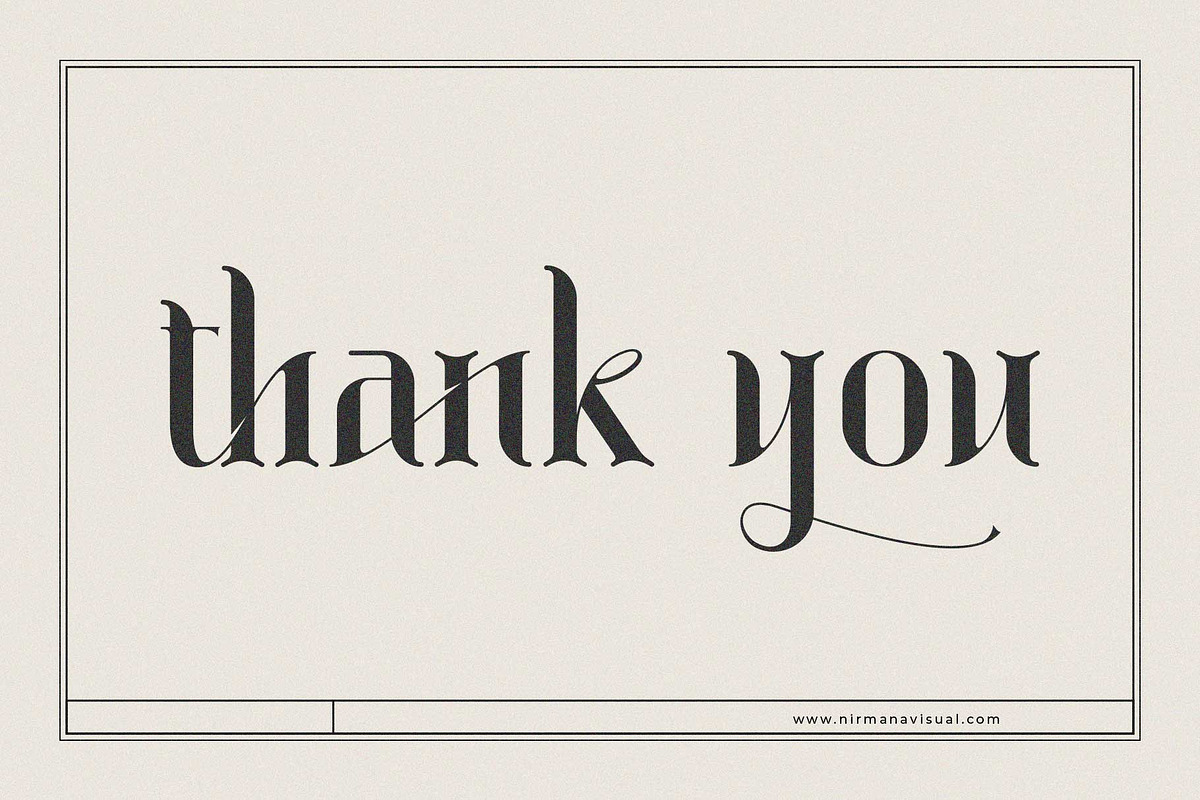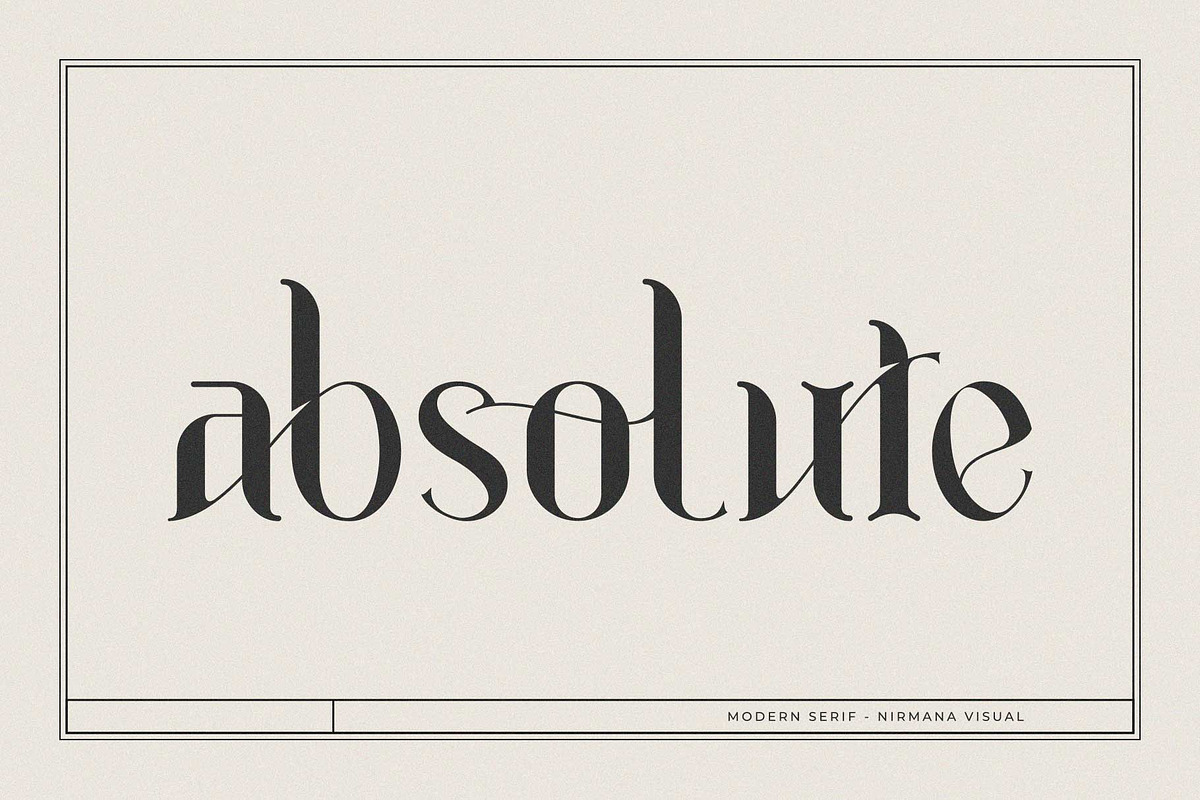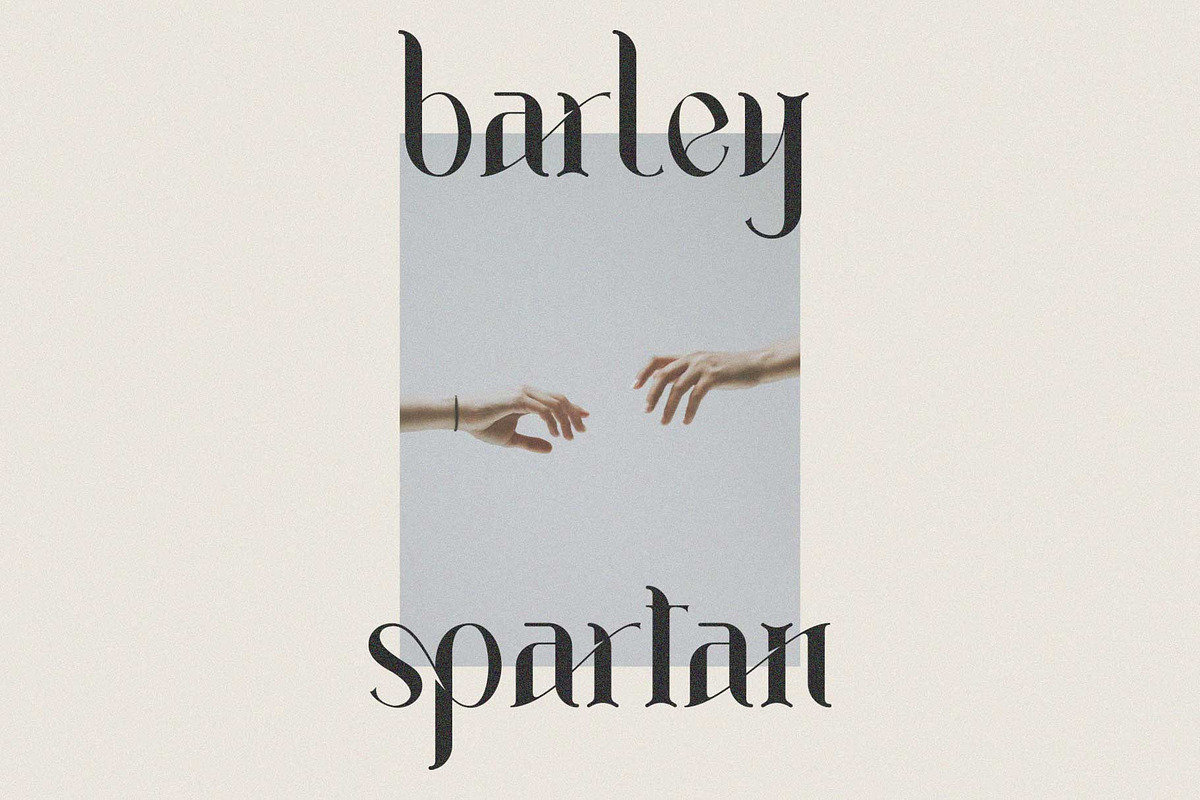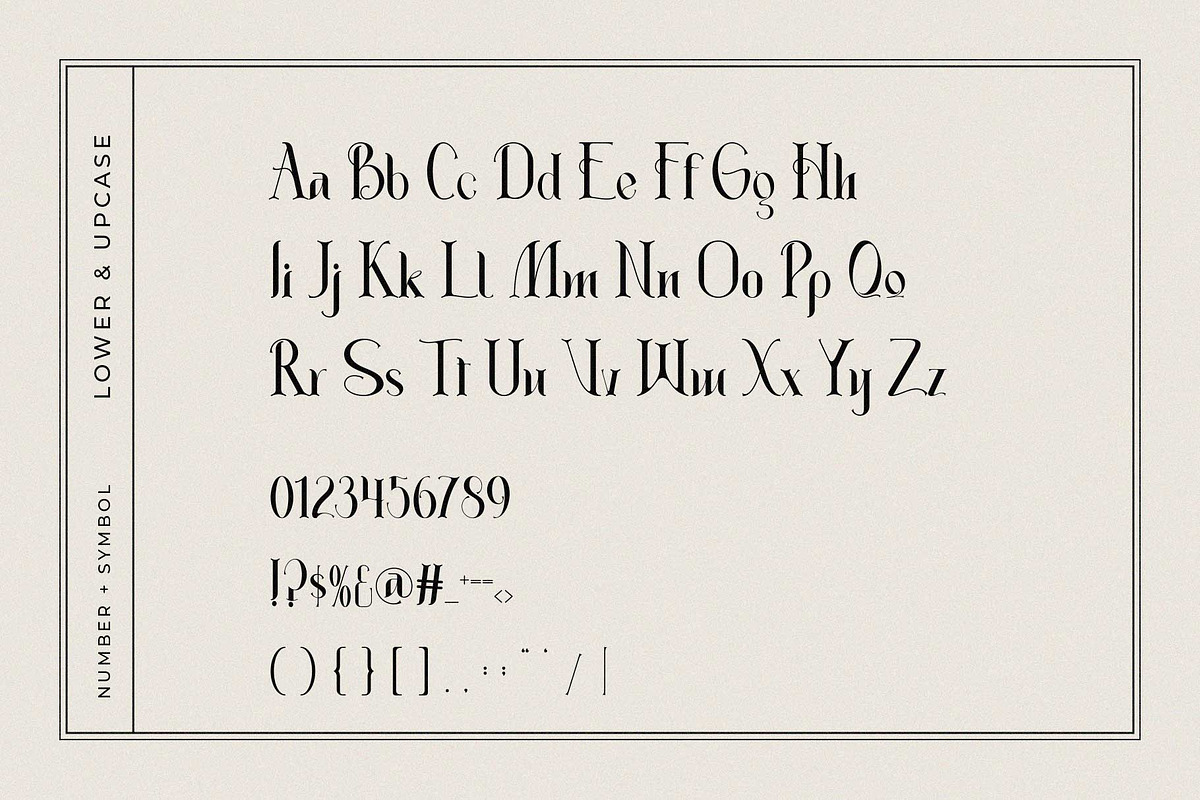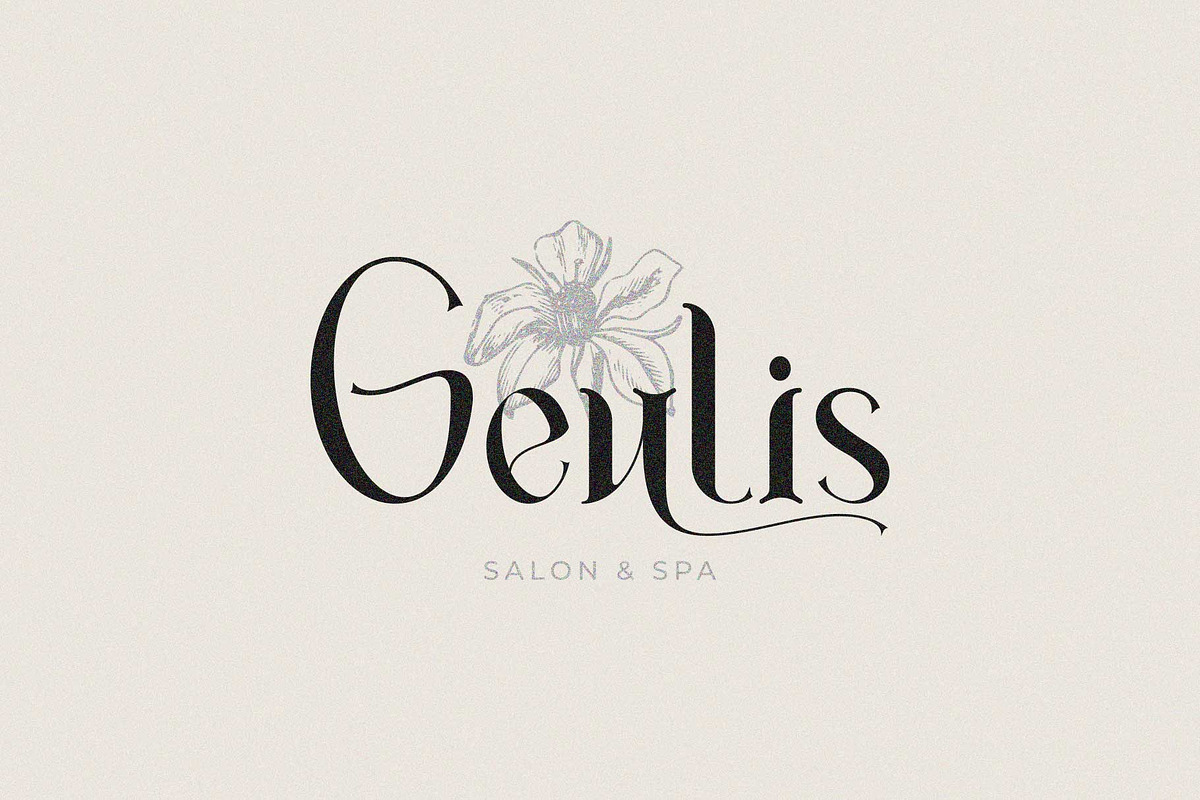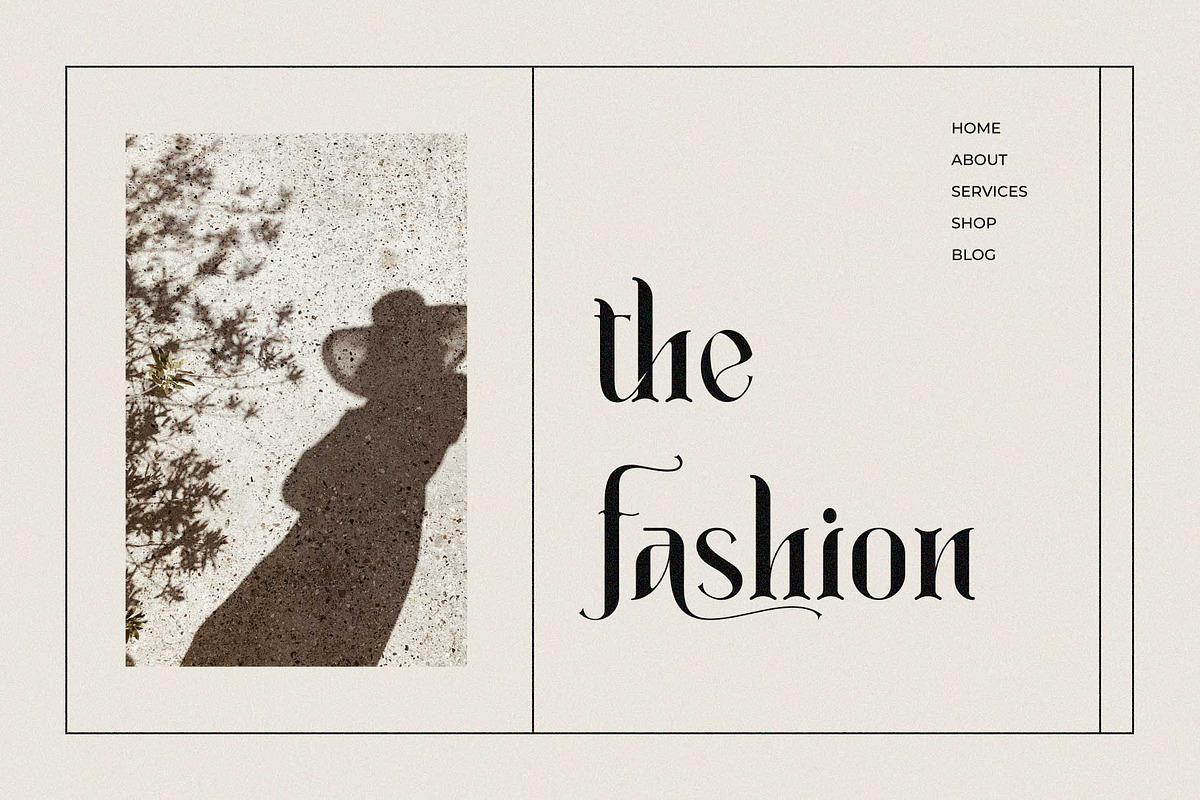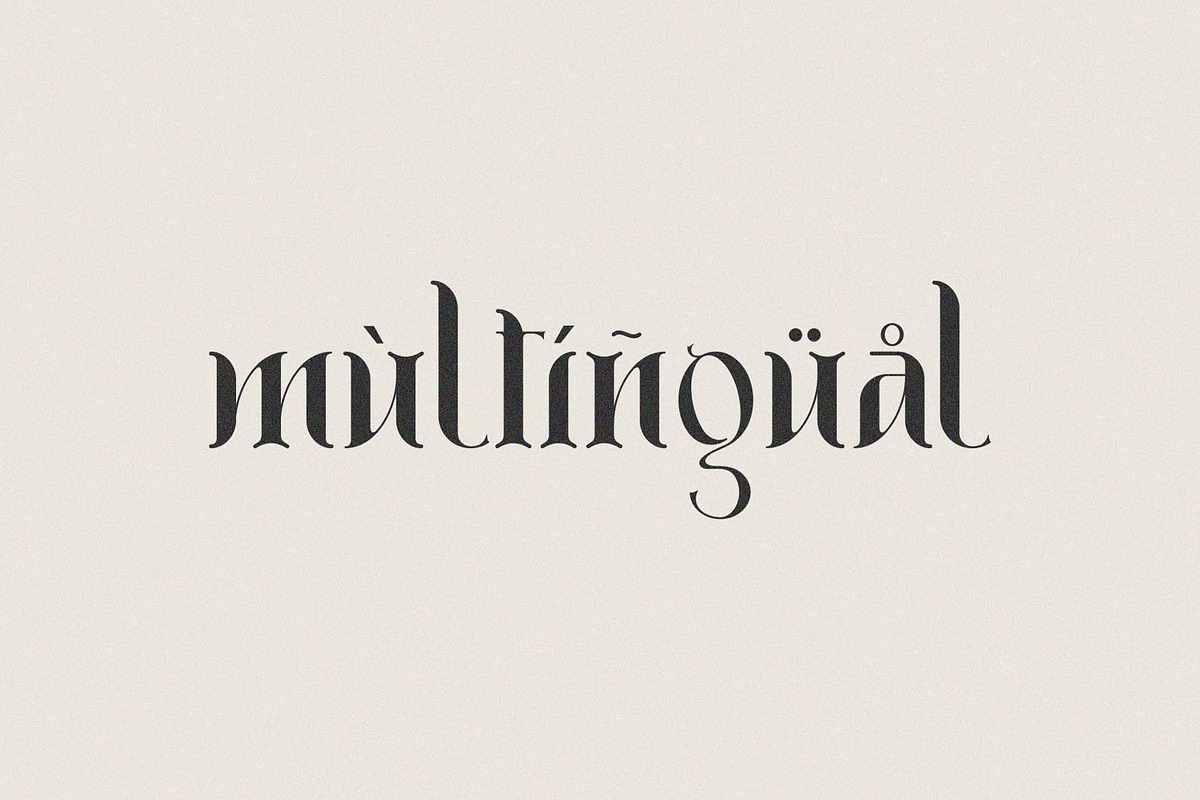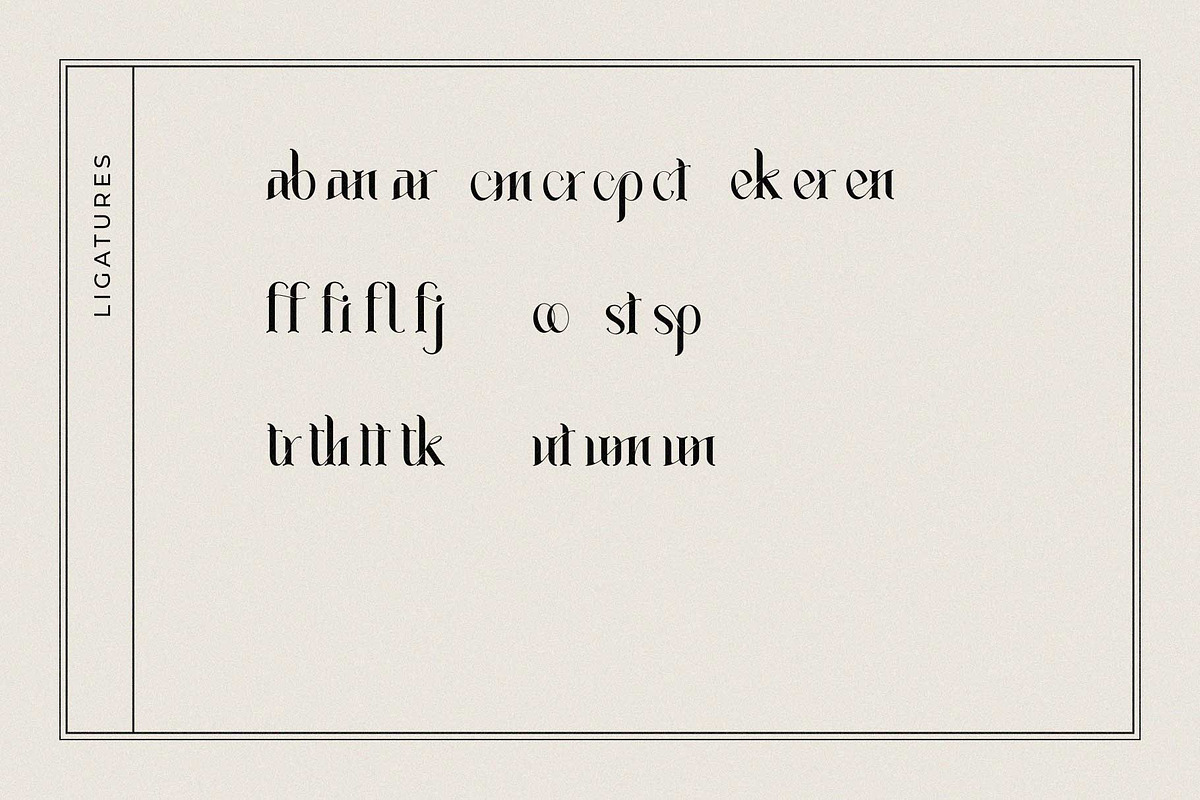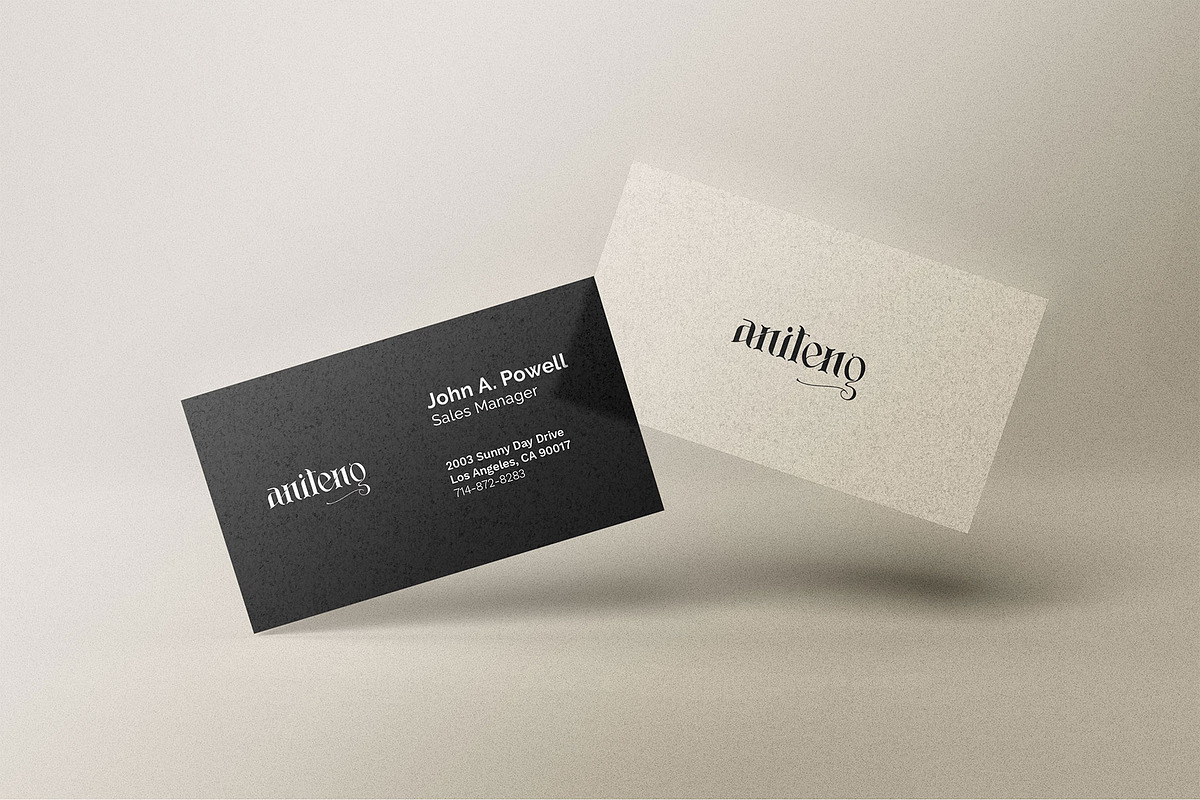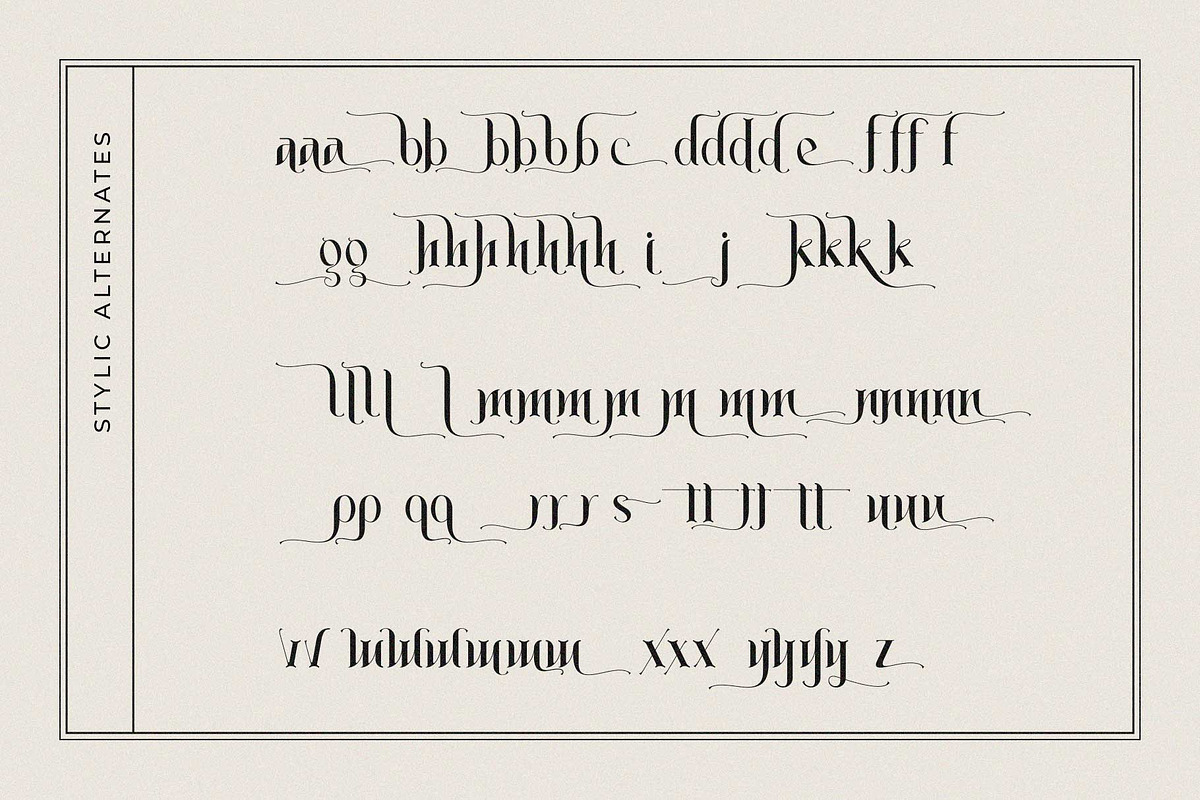
Absolute - Modern Serif
Absolute - Modern Serif Font
Introducing our new "Absolute" Modern Serif, This font is perfect for fashion related branding or editorial design and displays.
- Stylic Alternates